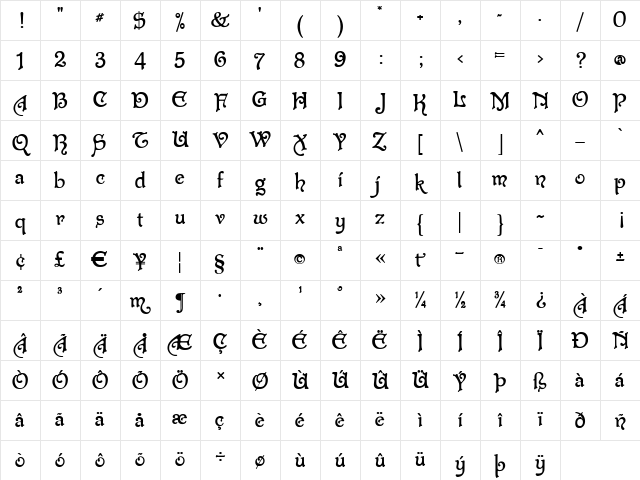
Aragon Regular Free Font
Aragon Regular
Aragon Family
Design Context for Aragon
Aragon is a composed and adaptable typeface that performs quietly and consistently across a wide range of design contexts.